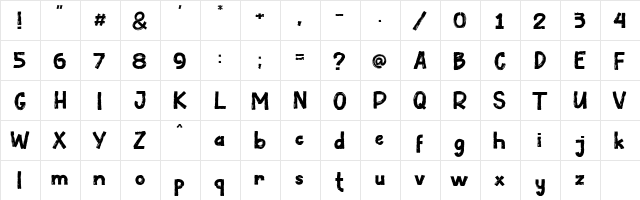
Under Type Regular
| Foundry | Khurasan |
| Designer | Khurasan |
Design Context for Under Type Typeface
Under Type is a composed and adaptable typeface that performs quietly and consistently across a wide range of design contexts.